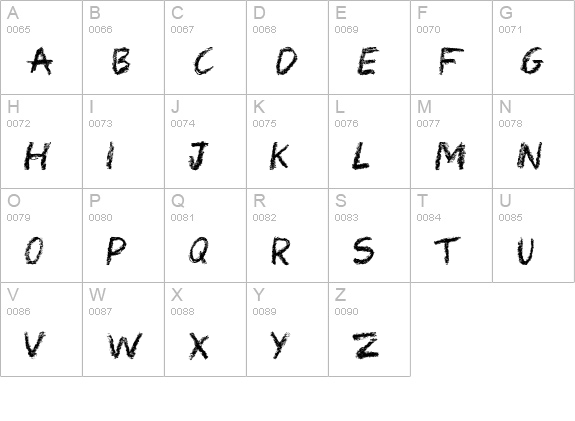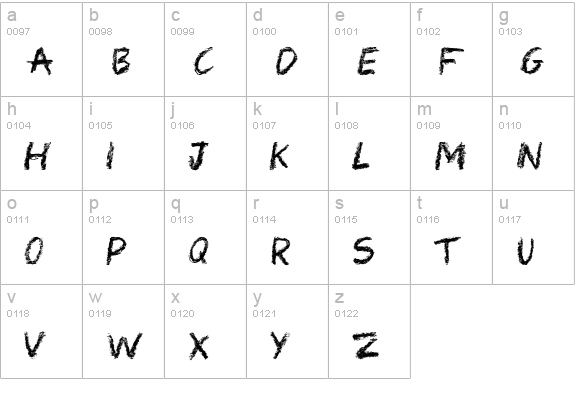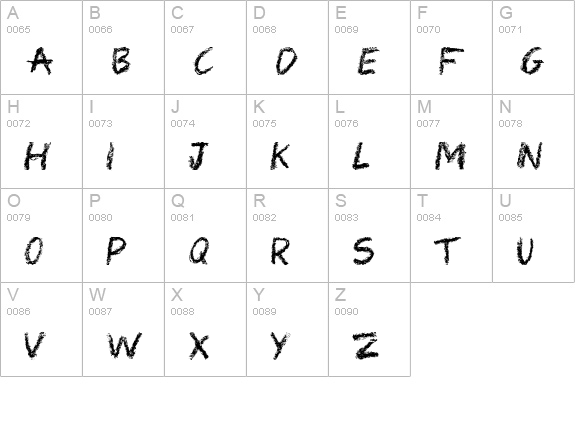
Bad to the bone Font Details
Bad to the Bone font is a bold and edgy typeface that exudes confidence and rebelliousness. With its sharp and jagged letterforms, this font is perfect for adding a touch of attitude to your designs. Whether you're creating a poster for a rock concert, designing a logo for a motorcycle club, or simply looking to make a statement, Bad to the Bone font will not disappoint. This font is characterized by its strong and aggressive appearance, making it the ideal choice for projects that require a bold and daring aesthetic. The sharp angles and rough edges of the letterforms give it a distinct and powerful presence that demands attention. What makes Bad to the Bone font even more appealing is that it is freely available to download at FontsMarket.com. You can easily access and use this font for personal or commercial purposes without any restrictions. This means that you can add a touch of badassery to your designs without having to worry about breaking the bank. So, if you're looking for a font that embodies the spirit of rebellion and is perfect for making a bold statement, look no further than Bad to the Bone font. Download it for free at FontsMarket.com and let your creativity run wild with this daring and captivating typeface.